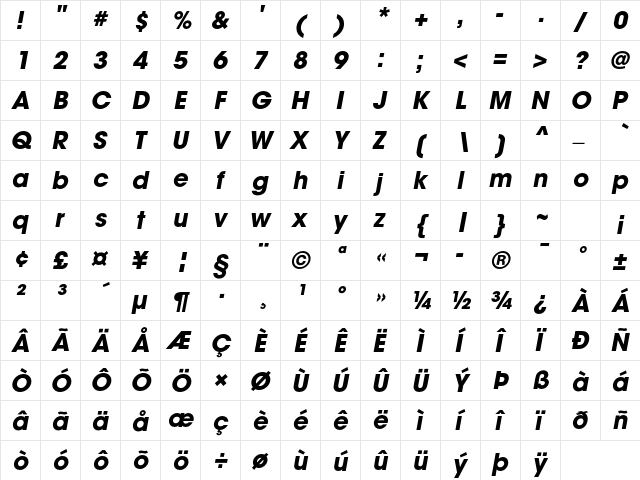
ITC Avant Garde Gothic Std Bold Oblique
| Designer | Herb Lubalin and Tom Carnase |
Design Context for ITC Avant Garde Gothic Std Typeface
ITC Avant Garde Gothic Std has the quiet confidence of well-executed sans-serif typography: versatile, unobtrusive, and dependable at any size. The slanted form adds forward momentum and visual energy. The heavy weight commands attention and anchors typographic hierarchies.
Well-suited to navigation labels, product packaging, and anywhere legibility at scale is essential.
Font Pairing: Use ITC Avant Garde Gothic Std for headlines alongside a lighter-weight sans or serif for body copy to establish clear visual hierarchy.
Pro Tip: Use ITC Avant Garde Gothic Std for UI labels, navigation, and short-form body copy where clean legibility is the priority.